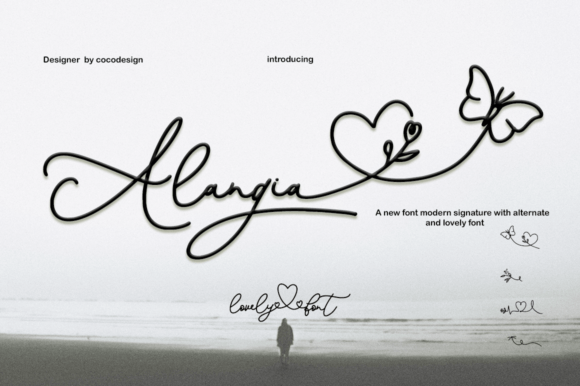
The Alangia Font: A Modern Signature Design for Creative Projects
Alangia Script is a modern signature design that includes a regular style and is perfect for creating beautiful, casual designs with a touch of elegance. The font features swashes, making it ideal for various purposes such as logos, product packaging, wedding invitations, branding, headlines, signage, labels, signatures, book covers, posters, quotes, and more.
- ✨ Elegant and modern design with a touch of sophistication
- ✅ Highly versatile and can be used for various design projects
- ✅ Includes swashes and stylistic alternates for added creativity
- ✅ Supports OpenType features, making it compatible with most design software
While the Alangia Font is an excellent choice for designers, there are a few quirks to be aware of. 🤔 For example:
- ⚠️ Some users may find the font’s elegance and swashes overwhelming, making it challenging to use for certain design projects.
The Designer Inspiration Behind Alangia Font
The Alangia Font was designed with the intention of creating a modern, elegant script font that would be perfect for a variety of design projects. The designer wanted to create a font that was both beautiful and versatile, with a touch of sophistication. While the real story behind the font’s creation is unknown, it’s clear that the designer put a lot of thought into creating a font that would meet the needs of designers and creative hobbyists alike.
| What is the Alangia Font? | The Alangia Font is a modern signature design that includes a regular style and is perfect for creating beautiful, casual designs with a touch of elegance. |